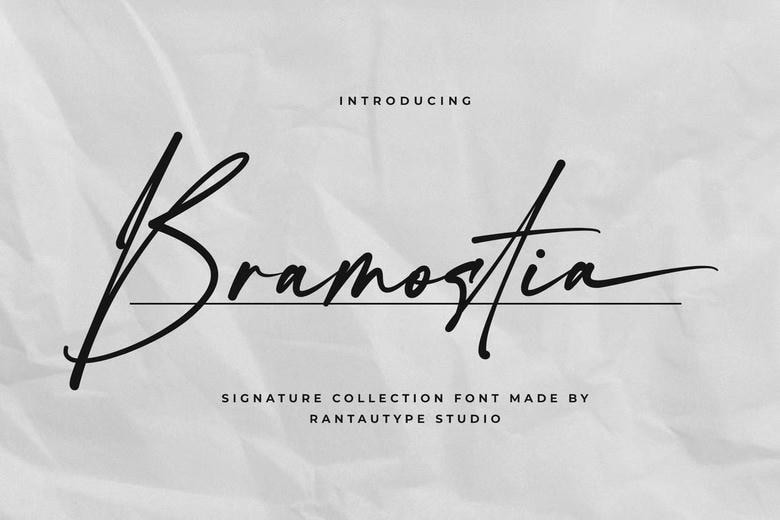
Bramostia Font
Bramostia signature collection fon is a fine collection that represents grace, character and elegance. Bramostia are accompanied by fluid stroke of writing signatures and the type of font just displays sophistications and originality.
Bramostia is a perfectly suitable to any creative work, creation, contemporary, lifestyle design, including logotype, title, cover, branding, invitation, wedding design, display and magazine design, social media, advertisement, printed quote, product packaging, corporate brand, product design, labels, photography, watermarks, special event and all other projects with good taste.
Bramostia Signature Script Font